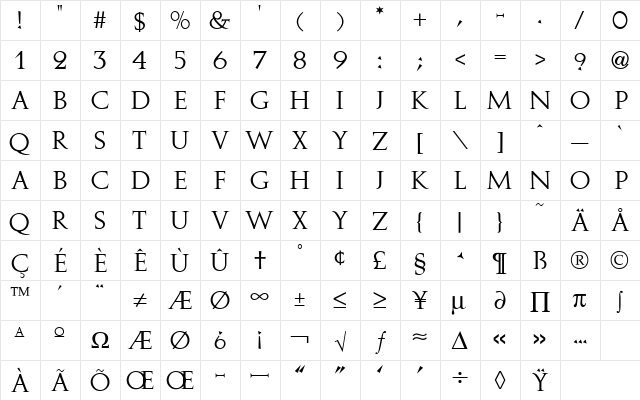
Implicit SSi Regular
Design Context for Implicit SSi Typeface
Implicit SSi takes a measured approach to typography — its balanced proportions and neutral character make it a reliable workhorse for both digital and print work.